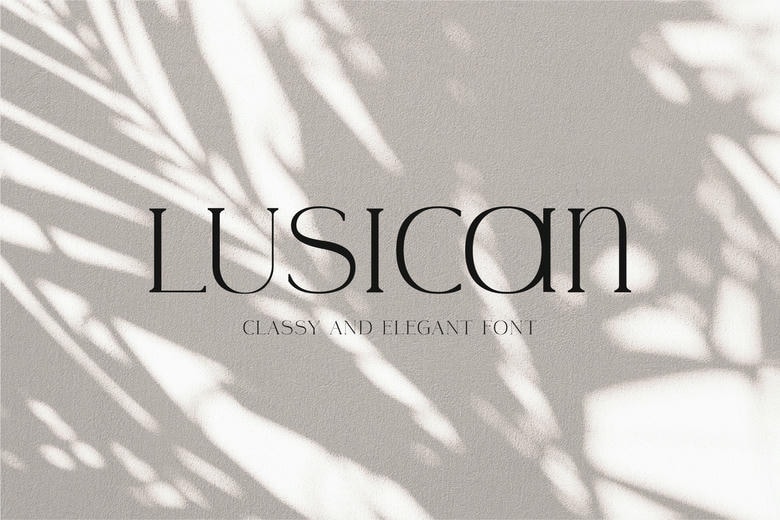
Lusican Font
Lusican is based on the serif font and is all minimalistic allowing this one to look so exquisite and charming. Suitable for branding logo, logo design, weddings, invitations, business cards and many more that are requiring typography.
Lusican Serif Font